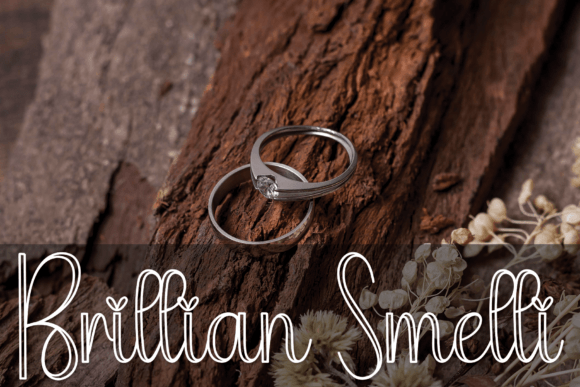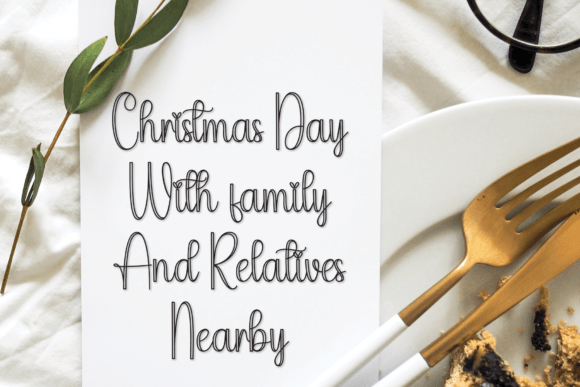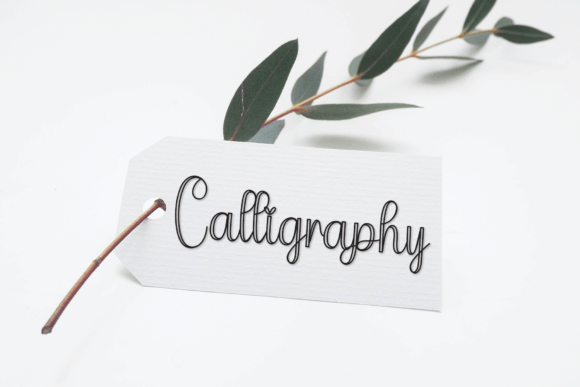
Introduction to Outwork Font
Outwork is an exquisite handwritten font, masterfully designed to become a true favorite.
Key Features of Outwork Font
Why Choose Outwork Font?
Outwork Font offers exceptional quality and versatility, making it a valuable addition to your design toolkit. Whether you’re creating for personal projects or commercial use, Outwork Font delivers professional results.